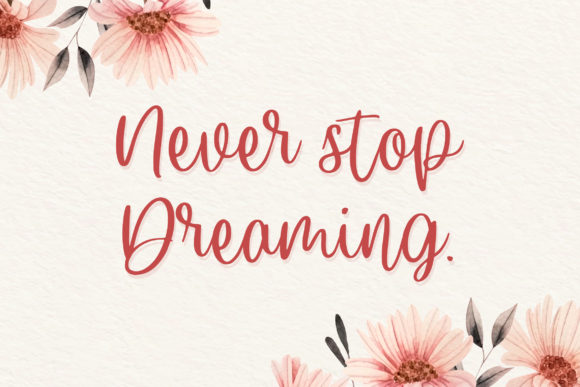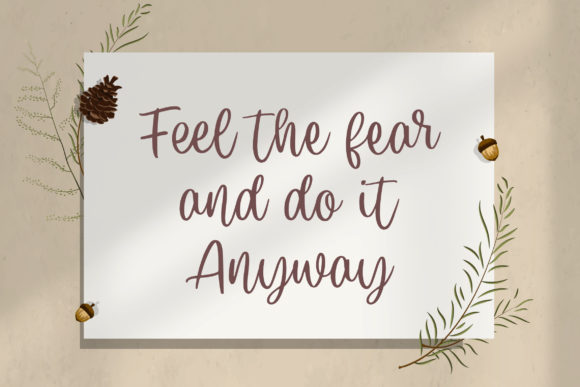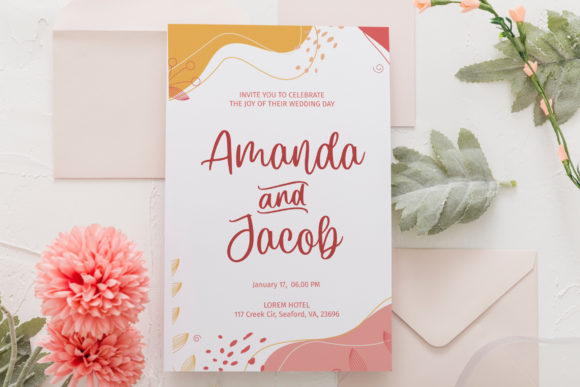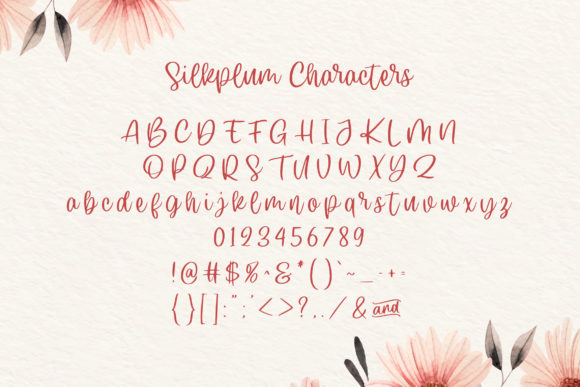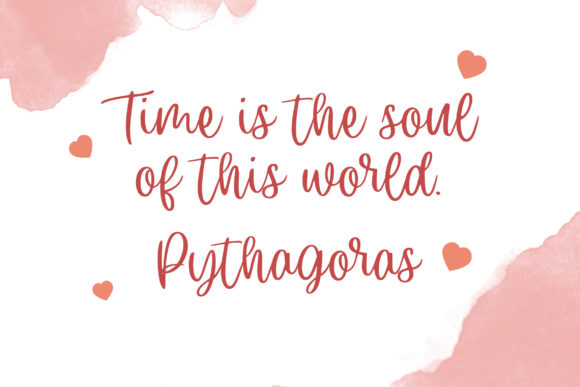
Introduction to Silkplum Font
As designers, we’ve all been there – staring at a blank canvas, trying to bring our creative ideas to life. Sometimes, all it takes is the right font to give our projects that extra oomph. For me, that moment came when I discovered the Silkplum Font. Its charming, playful characters seemed to dance along the baseline, elevating even the simplest of designs into something truly special.
With its high-quality design and transparent background, the Silkplum Font is the perfect addition to any creative project. Whether you’re working on a branding campaign, a wedding invitation, or a social media graphic, this beautiful script font is sure to make your ideas stand out. And the best part? It’s a free download, making it an invaluable resource for designers on a budget.
As a valuable design resource, the Silkplum Font is a must-have for anyone looking to add a touch of elegance and whimsy to their work. So why settle for ordinary when you can have extraordinary? Download the Silkplum Font today and watch your creative projects come to life in a whole new way.
Key Features of Silkplum Font
- High-quality font design suitable for creative projects, with a unique and elegant style.
- Font size: 1,024 glyphs, providing a comprehensive set of characters for creative expression.
- Perfect for use in a variety of creative projects, from branding and marketing materials to digital art and typography.
Honest Review: Silkplum Font
As a designer, I’m always on the lookout for high-quality fonts that can elevate my creative project. Recently, I stumbled upon the Silkplum Font, and I was excited to give it a try.
First impressions were great – the font is stylish, modern, and perfect for a wide range of design applications. I particularly loved the transparent background, which made it easy to combine with other design elements.
- ✨ Beautiful, elegant design that’s perfect for creative projects
- ✨ Great for use as a title font or headings
- ⚠️ Limited font styles and variations available
- ⚠️ Not ideal for use as a body font, due to its decorative nature
Overall, I was impressed with the Silkplum Font, but I wouldn’t use it as a primary font for a long-form design project. Still, it’s a fantastic design resource for any creative project that requires a stylish touch.
Getting the Most Out of Silkplum Font
- Use the font on a transparent background for a sleek and modern look.
- Experiment with different font sizes and colors to add depth and interest to your design.
The Silkplum Font is ideal for a variety of creative projects, including:
- Graphic design and visual identity
- Print and digital marketing materials